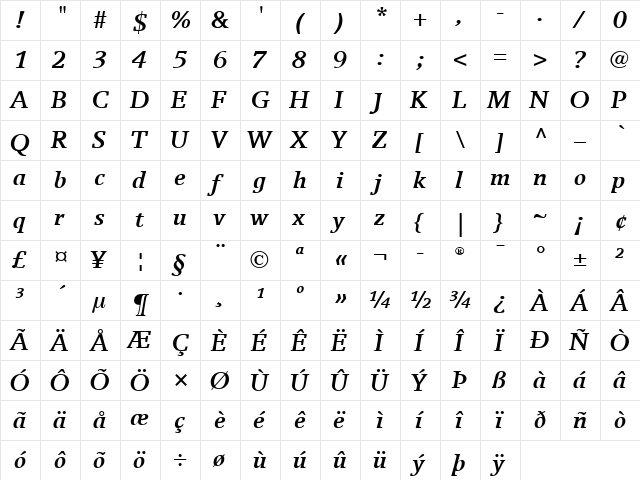
Breughel LT Regular Bold Italic Font Preview
Design Context for Breughel LT Regular Typeface
Breughel LT Regular offers clean, dependable letterforms without strong stylistic allegiance, making it a practical choice for designers who need flexibility. Its italic angle brings a sense of urgency and motion to the letterforms. The heavy weight commands attention and anchors typographic hierarchies.
Pro Tip: Try Breughel LT Regular for annotation and caption copy alongside an upright companion — the contrast in angle creates a dynamic but ordered typographic system.